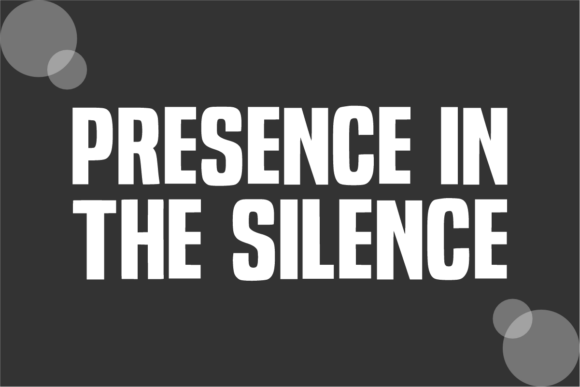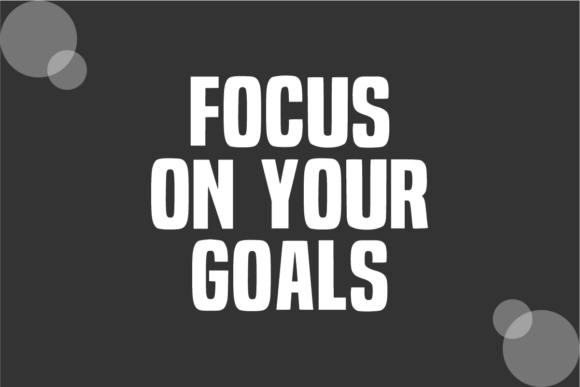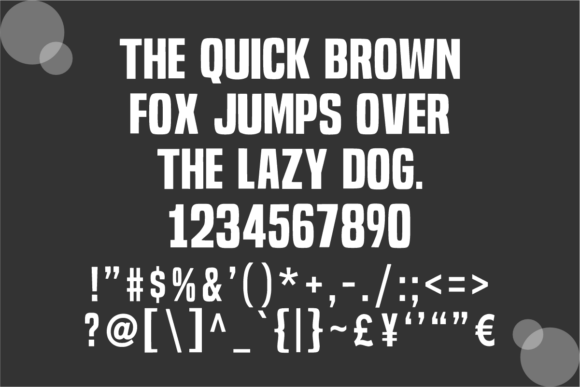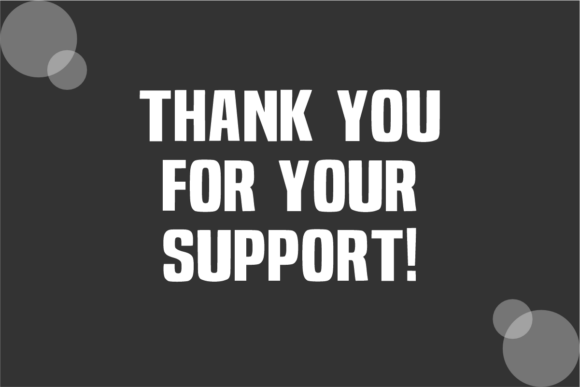
Introduction to Simple Sans Font
You know that moment when you’re working on a creative project, and you’re searching for the perfect font to elevate your design? The one that makes your message stand out and leaves a lasting impression on your audience? For designers, finding the right font can be a game-changer. It’s what sets your design apart from the rest and makes it truly memorable.
That’s where the Simple Sans Font comes in – a modern, bold, and elegant sans serif font that’s designed to make your design pop. With its clean lines and solid structure, Simple Sans Font is the perfect choice for any high-quality design project, whether you’re working on branding, social media graphics, or merchandise. And the best part? It’s available for free download, making it a valuable resource for designers who want to take their creative projects to the next level.
In this article, we’ll dive deeper into the world of Simple Sans Font and explore what makes it such a valuable design resource.
Key Features of Simple Sans Font
- High-quality design: Simple Sans Font is designed to provide a clean and modern look, making it perfect for creative projects.
- Transparent background: The font features a transparent background, allowing designers to easily customize the text with various backgrounds.
- Large character set: Simple Sans Font includes a large character set, covering a wide range of languages and characters, making it suitable for global creative projects.
- High-resolution design: The font is designed at 300 DPI, ensuring crisp and clear text, even at large sizes.
- Easy to use: Simple Sans Font is highly legible and easy to read, making it an excellent choice for designers working on various creative projects.
Honest Review: Simple Sans Font
I recently had the chance to work with the Simple Sans Font, and I must say, it’s been a game-changer for my design projects. ✨ The font’s clean and minimalist aesthetic makes it perfect for creating a high-quality design resource that stands out from the crowd.
- Easy to read: The Simple Sans Font is designed to be highly legible, even at smaller font sizes.
- Transparent background: This feature allows for a seamless design experience, especially when working with images or transparent backgrounds.
While the Simple Sans Font is a great addition to any designer’s toolkit, I do have a few minor complaints. ⚠️ The font selection is a bit limited, and I wish there were more variations to choose from. Additionally, the font’s weight and style options could be more extensive.
Overall, I’m impressed with the Simple Sans Font. It’s a great resource for any creative project, and I’ll definitely be using it in my future designs. With a few minor tweaks, I think it has the potential to become a top-tier design resource.
The Simple Sans Font is ideal for use in logos, business cards, brochures, and other marketing materials where a clean and simple design is required. Its high quality and transparent background make it a great design resource for any creative project.